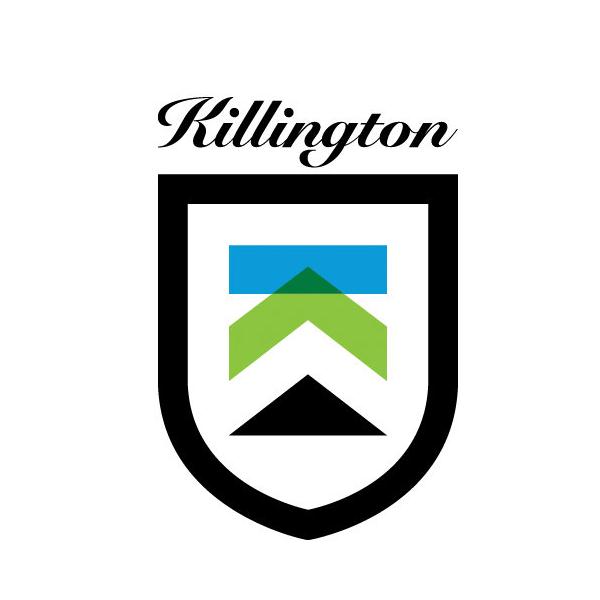
Killington Font
EntertainmentKillington is a popular ski and snowboard destination located in central Vermont. It boasts over 70 miles of ski terrain.
The Killington logo is likely set in Snell Roundhand Bold Script font. This font was designed by Matthew Carter for Linotype in 1966 and is inspired by the handwriting of Charles Snell, an English writing master.